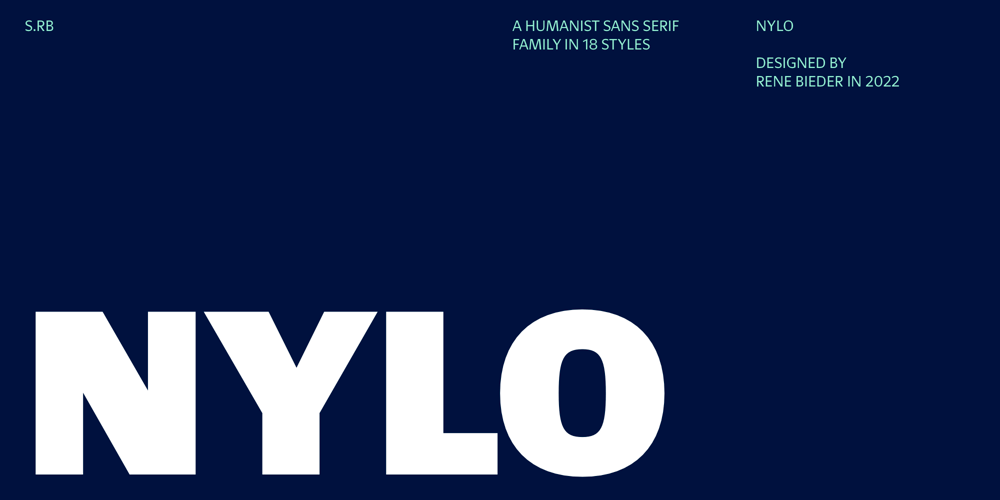
Nylo
Nylo font
Nylo Font Family was designed by René Bieder and published by René Bieder. Nylo contains 19 styles and family package options. When I started working as a young graphic designer, the design landscape was teeming with sans-serif humanist fonts. They dominated the scene, seemingly leaving little room for any other typographic styles to flourish. However, as time went on, these once ubiquitous typefaces gradually faded from his radar, overshadowed by new trends and emerging design movements.With every stroke and curve meticulously crafted, Nylo encapsulates the essence of sans-serif humanist fonts, capturing their inherent warmth and approachability. It pays tribute to the legacy of these timeless typefaces while infusing them with a contemporary touch, ensuring their relevance in today’s ever-evolving design landscape.